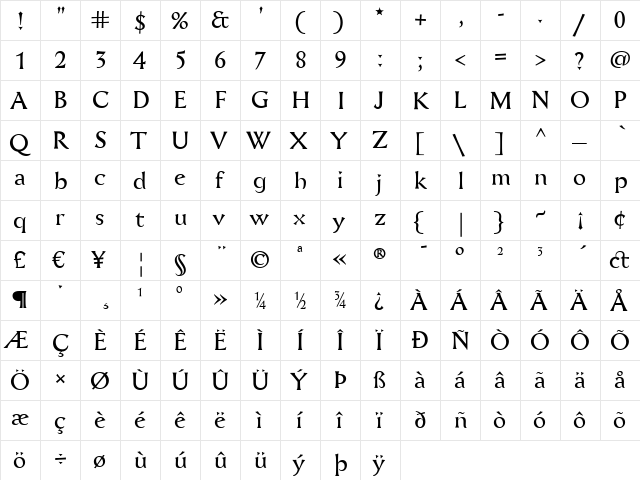
Aichel Regular
Design Context for Aichel Typeface
Aichel offers clean, dependable letterforms without strong stylistic allegiance, making it a practical choice for designers who need flexibility.